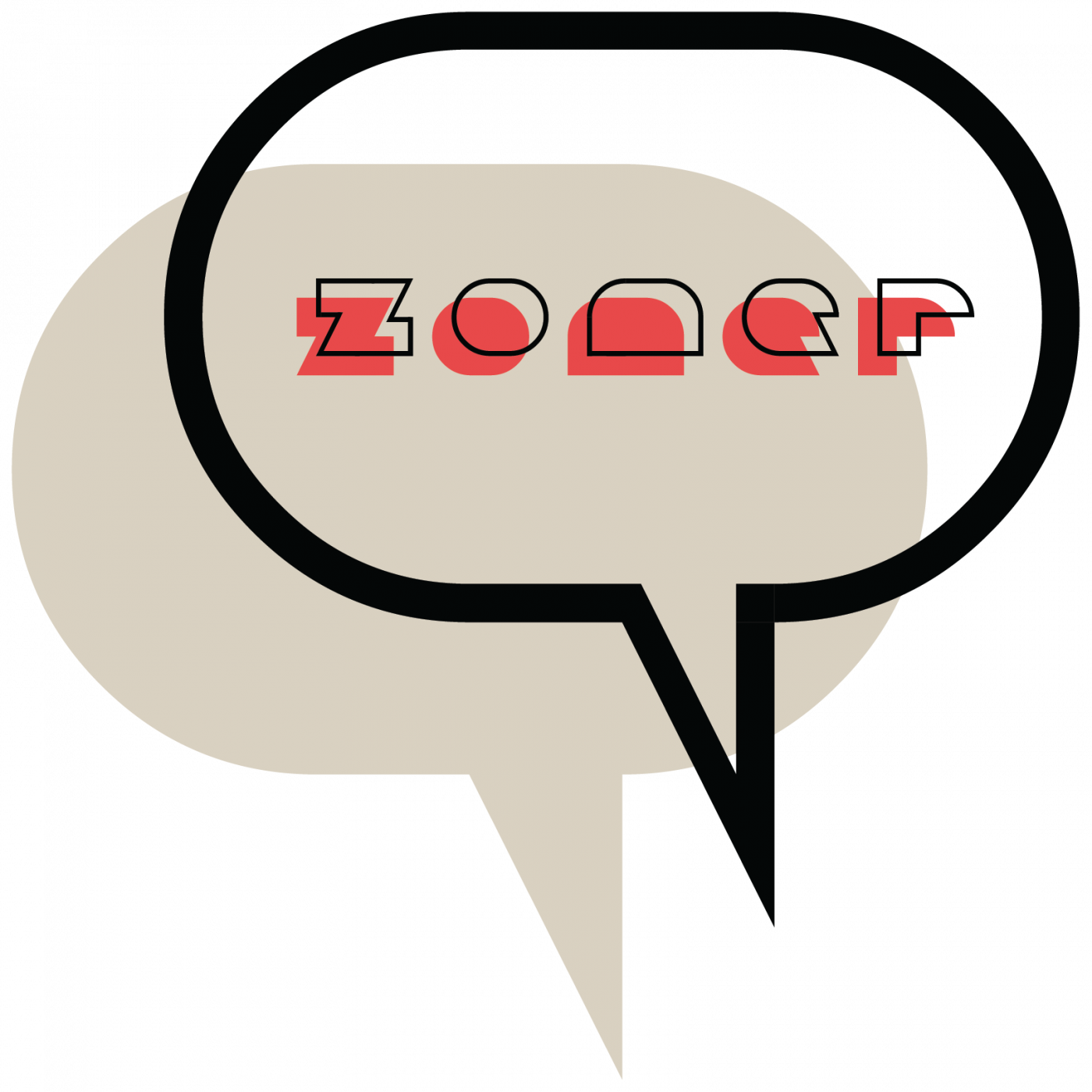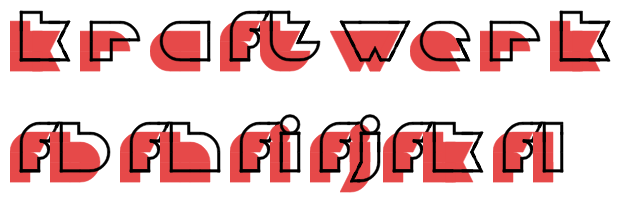
Cool font! I could imagine it on a Kraftwerk album cover. For example, for the 50th anniversary edition of Autobahn. If there had been one.
I tried to see how it would look if I wrote "kraftwerk". Very good! The only problem was that at least here it wrote the letter [t] very close to the letter [f]. I tried it, and it also wrote some other letters too close to it.
"The printer can't possibly print that much an offset, right?"
The printer:
(nice font by the way)
Love the geometric look!
@bmw weird i never had that problem (although i had some confusion with printer magenta being #ff0080)
A super cute font! Is it for a specific project? It would look great on a marquee or commercial logo... 10/10
@elmoyenique: Thanks, I don't have any plans for it yet, but look forward to using it in the future.
The "Q" tail is a bit thin in my opinion — very good font tho
Just beautiful. Congratulations 😍
A great spin on a Memphis style font
I don't like many staff picks, but this one is clean. Love the simplistic silhouette. Very distinctive.
Cool font! I could imagine it on a Kraftwerk album cover. For example, for the 50th anniversary edition of Autobahn. If there had been one.
I tried to see how it would look if I wrote "kraftwerk". Very good! The only problem was that at least here it wrote the letter [t] very close to the letter [f]. I tried it, and it also wrote some other letters too close to it.
very cool